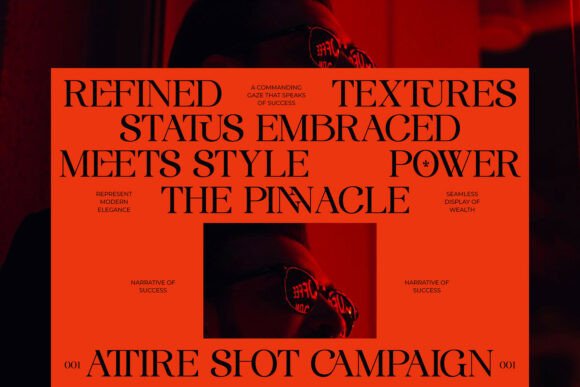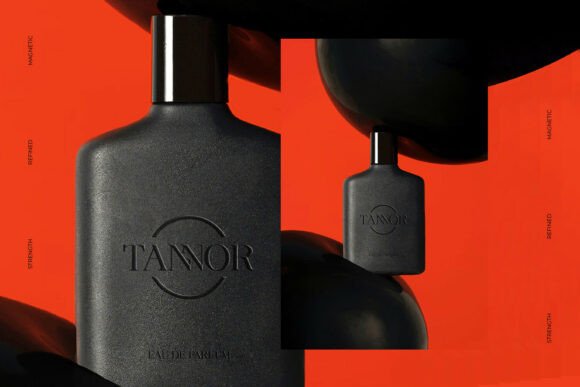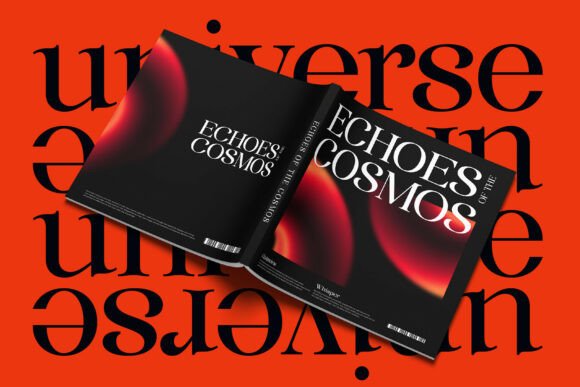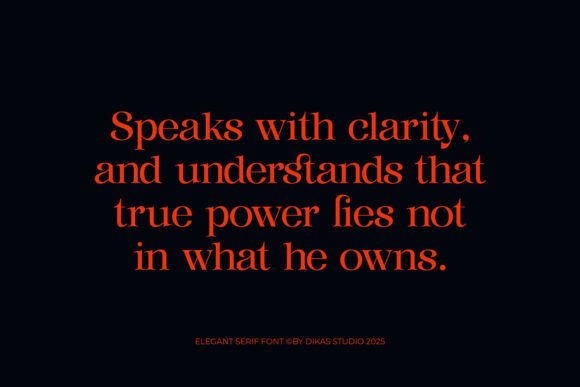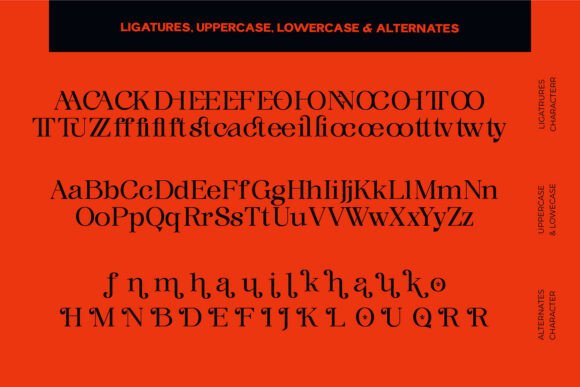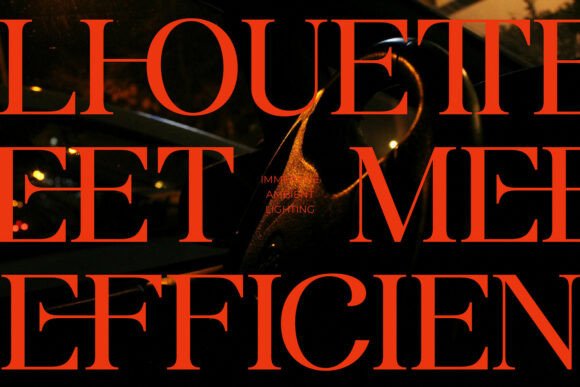
Bogens Font: Elevate Your Designs with Elegance and Sophistication
In the world of typography, a font can make or break a design. If you’re looking for a typeface that exudes luxury, sophistication, and elegance, look no further than Bogens Font. This stunning serif font is perfect for designers and crafters who want to add a touch of vintage style to their projects. With its smooth, flowing alternate characters and deep contrast, Bogens is sure to elevate your designs to the next level.
A Font with a Vintage Flair
Bogens Font is an elegant serif font with a touch of vintage style. Its unique blend of classic and modern elements makes it perfect for a wide range of design projects, from logotypes and posters to titles and packaging. The font’s smooth, flowing alternate characters add a unique look to your design, setting it apart from more traditional typefaces.
Two Styles to Suit Your Needs
One of the standout features of Bogens Font is its versatility. The font comes in two styles: Regular and Rough. The Regular style offers a clean and polished look, perfect for designs that require a touch of sophistication. The Rough style, on the other hand, adds a textured element to your design, giving it a more rugged and artistic feel. This means you can choose the style that best suits your creative needs.
Defining Features of Bogens Font
So, what sets Bogens Font apart from other serif typefaces? Here are a few defining features that make it a standout:
- Deep Contrast: Bogens Font features a deep contrast between its thick and thin strokes, giving it a luxurious and sophisticated feel.
- Robust Weight: The font’s robust weight makes it perfect for headlines, titles, and logotypes that need to make a statement.
- Uniquely Curved Serifs: Bogens Font’s serifs are uniquely curved, giving it a decorative display quality that’s perfect for high-end branding and advertising.
Customization Options
Bogens Font is highly versatile, with a range of customization options to help you refine your typography. The font includes:
- 32 Ligatures: Ligatures are special characters that combine two or more letters into a single glyph. Bogens Font includes 32 ligatures to help you create unique and elegant typography.
- 30 Stylistic Alternates: Stylistic alternates are alternate characters that can be used to add variety to your typography. Bogens Font includes 30 stylistic alternates to help you customize your design.
Perfect for High-End Designs
Bogens Font is perfect for high-end designs that require a touch of luxury and sophistication. Here are a few examples of projects that would benefit from this stunning typeface:
- High-End Branding: Bogens Font is perfect for luxury brands that want to create a sophisticated and elegant image.
- Fashion Editorials: The font’s elegant and refined quality makes it perfect for fashion editorials and magazine covers.
- Upscale Product Packaging: Bogens Font is perfect for upscale product packaging that requires a touch of luxury and sophistication.
- Sophisticated Advertising Campaigns: The font’s bold and luxurious presence makes it perfect for sophisticated advertising campaigns that want to make a statement.
In conclusion, Bogens Font is a stunning serif typeface that exudes luxury, sophistication, and elegance. With its smooth, flowing alternate characters, deep contrast, and robust weight, it’s perfect for designers and crafters who want to elevate their designs to the next level. Whether you’re working on a high-end branding project, fashion editorial, or upscale product packaging, Bogens Font is sure to make a statement. So why settle for ordinary typography when you can have extraordinary? Try Bogens Font today and experience the power of elegant and sophisticated design.